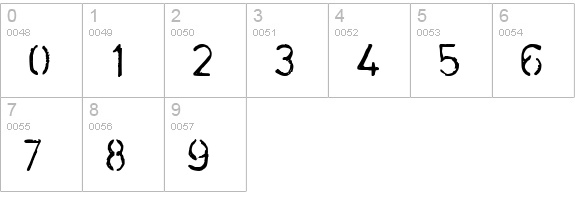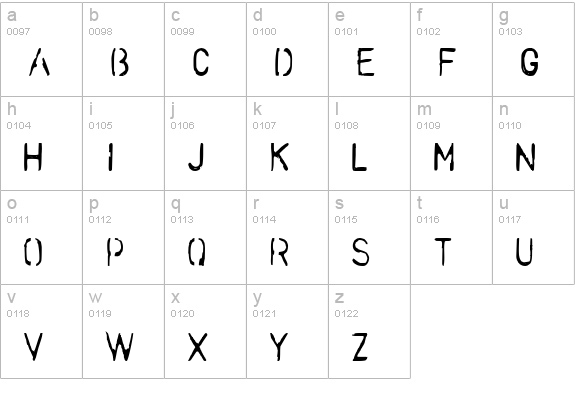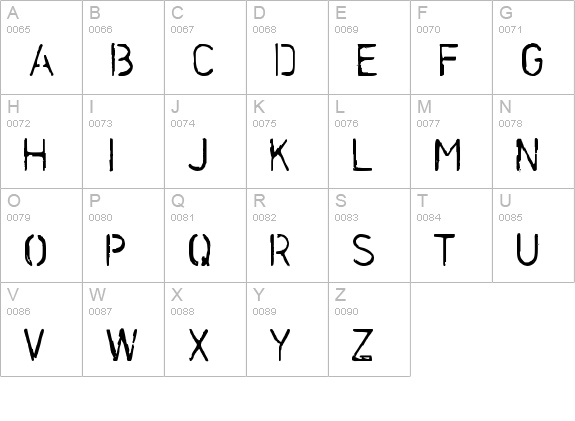
Stencilcase Bold is a strong, high-contrast variant in the Stencilcase typeface family \xE2\x80\x94 well suited to headlines, attention-grabbing titles, and strong calls-to-action.
Introducing Stencilcase Bold Font, a striking typeface that commands attention with its bold and confident appearance. This font is perfect for projects that require a strong and impactful presence, making it ideal for headlines, logos, and posters. With its clean lines and distinct stencil-like design, Stencilcase Bold Font adds a touch of modernity and sophistication to any creative endeavor. Its bold weight is balanced by its refined elegance, ensuring that your message stands out without overpowering the overall aesthetic. But what sets Stencilcase Bold Font apart from other fonts is its availability as a free download. Yes, you read that correctly - this exceptional font can be yours without spending a dime. Simply visit FontsMarket.com, and you'll have access to this remarkable typeface, ready to elevate your designs to new heights. Whether you're a professional designer or a creative enthusiast, Stencilcase Bold Font offers endless possibilities. From branding and advertising to web design and packaging, this font will leave a lasting impression on your audience. So why wait? Embrace the power of Stencilcase Bold Font and unleash your creativity. Download it for free at FontsMarket.com and embark on a typographic journey that will leave audiences in awe. Don't miss out on this opportunity to make a bold statement with your designs.